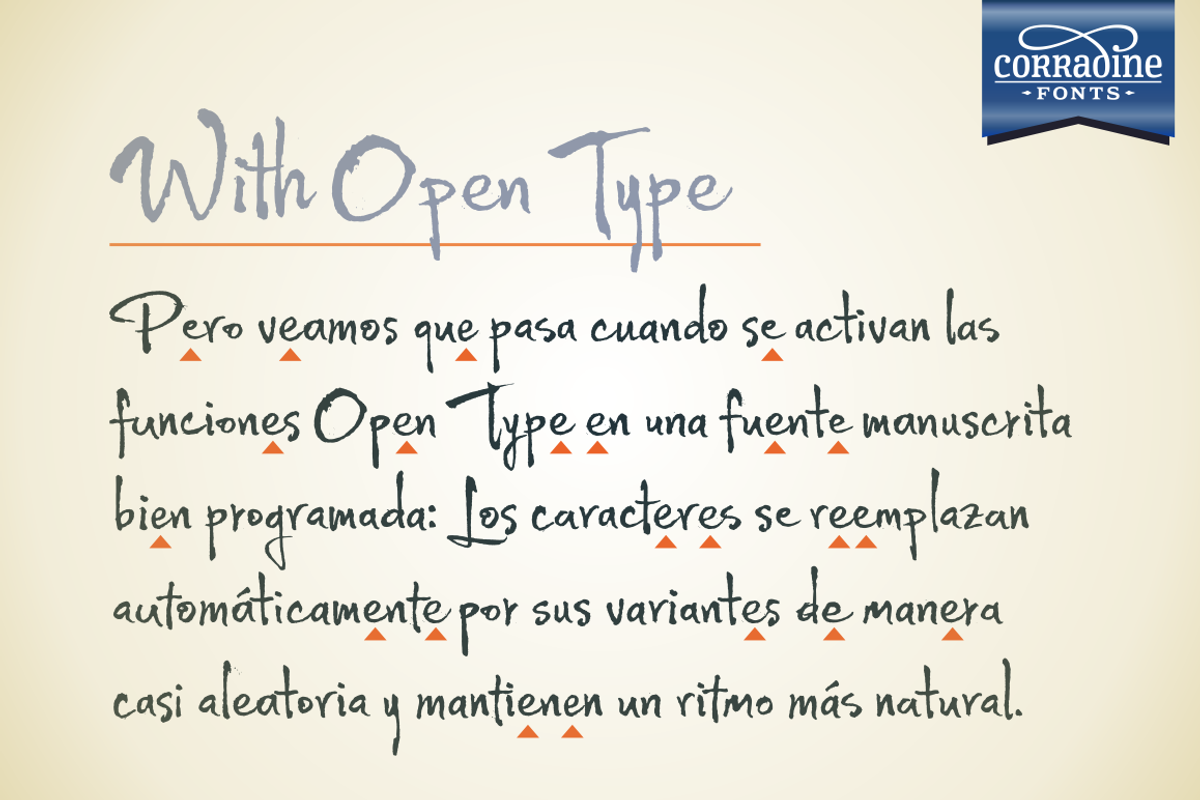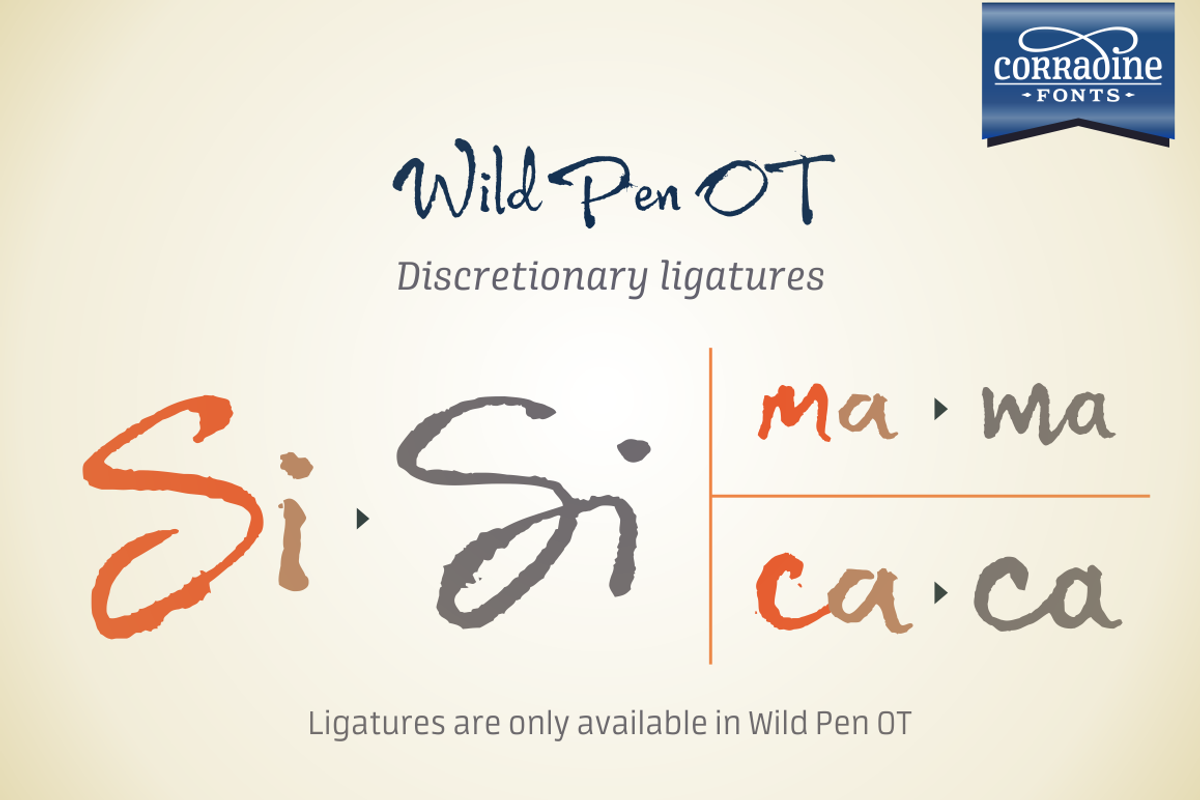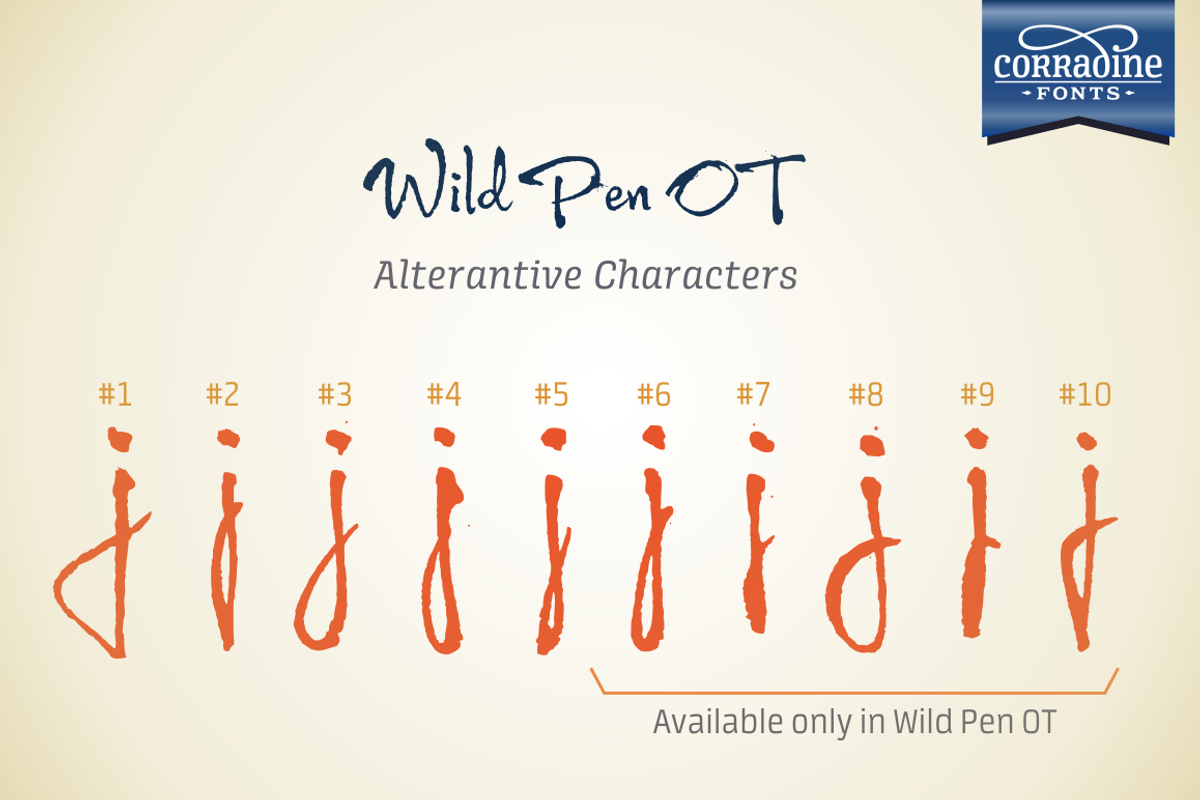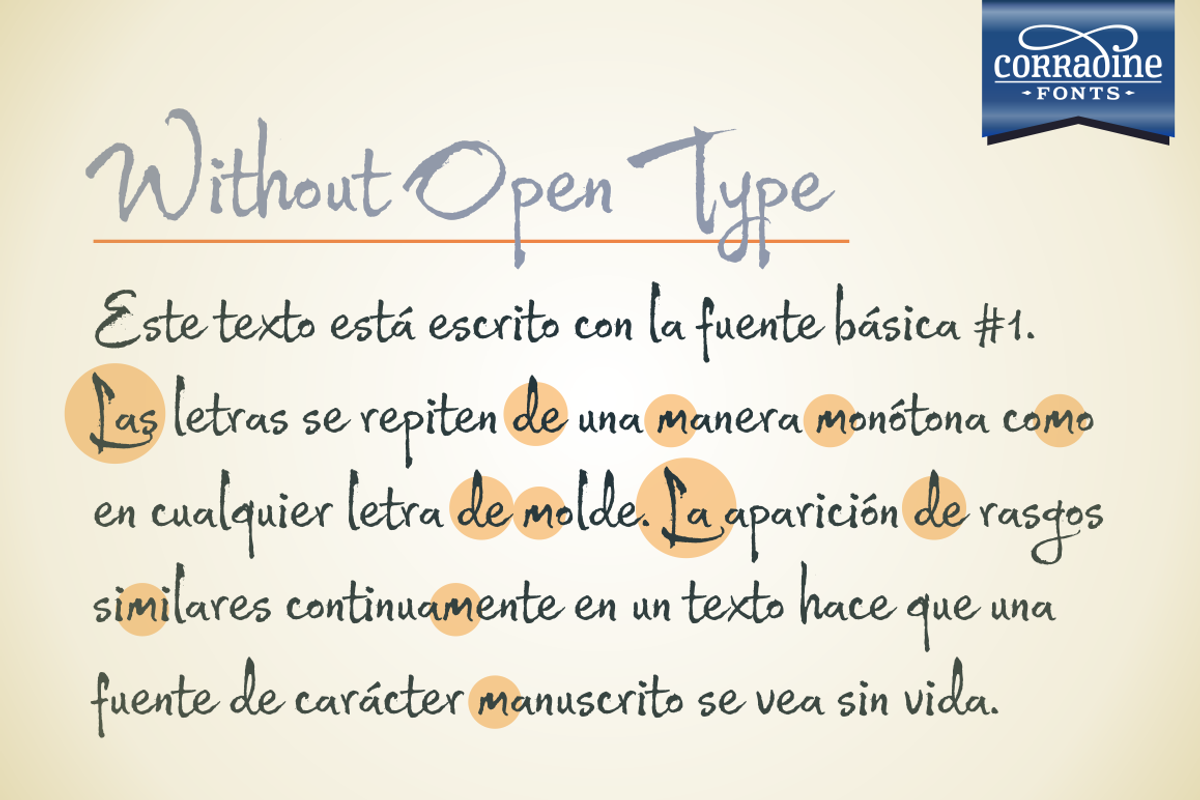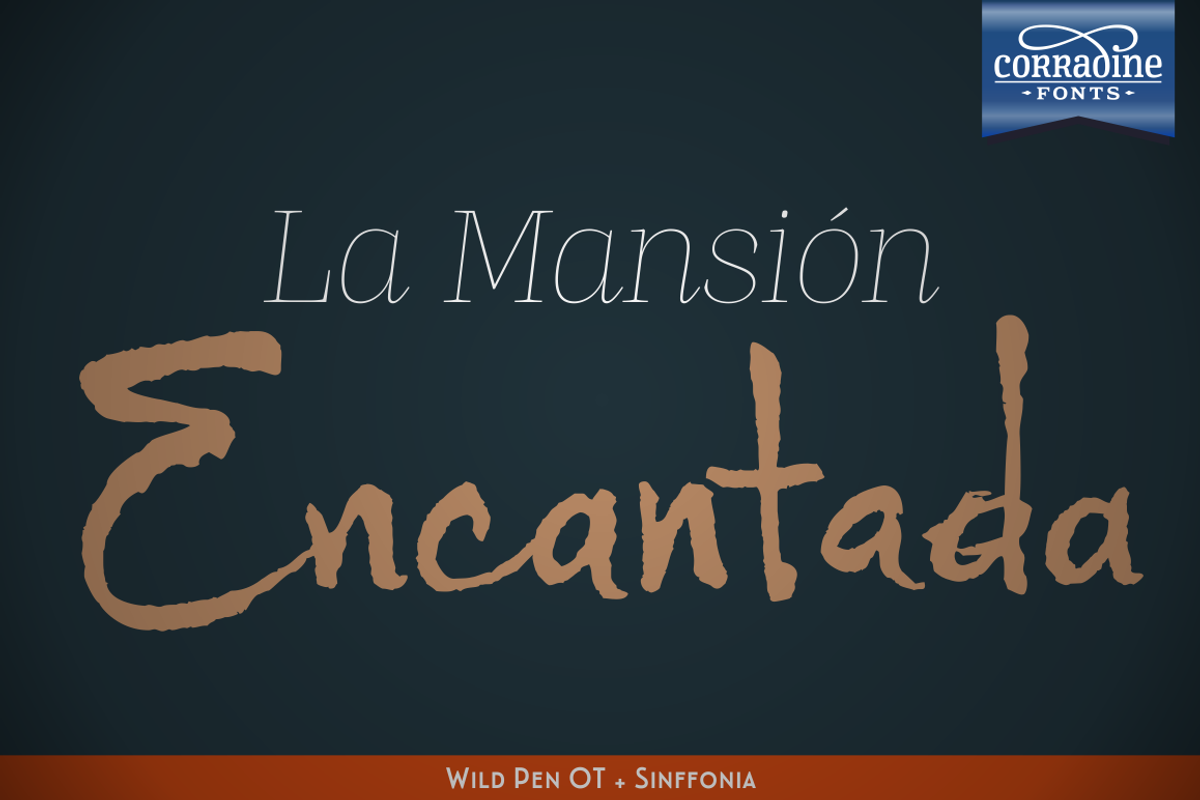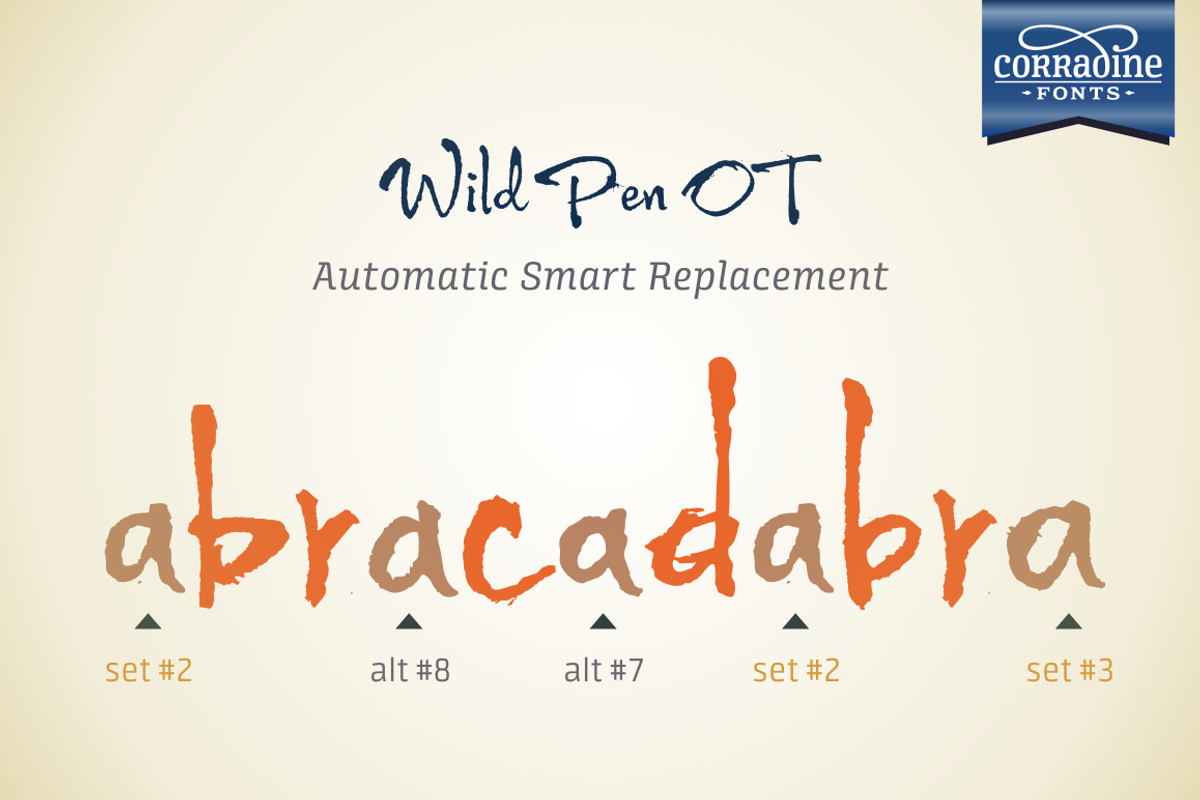
Wild Pen OT
Wild Pen OT by Corradine Fonts is a font selected for branding, posters, packaging, typography.
- The complete family consists of five different fonts which have the same feeling and allow mixing them to obtain a lifelike handwriting text
- Wild Pen contains almost 1200 glyphs to cover many Latin languages (Western and Central European).
- Wild Pen OT is judiciously programmed to mix randomly the five basic sets and improve the texts with the additional alternative characters w
Why Wild Pen OT is worth a look
Wild Pen OT by Corradine Fonts fits naturally into Branding, posters, packaging, typography.